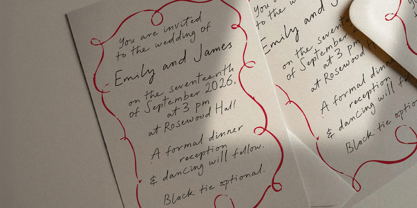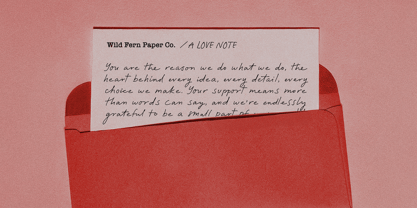
The Editorial Method
par PeachCreme
La famille de polices The Editorial Method a été conçue par Gulya Yeap et publiée par PeachCreme. The Editorial Method contient 2 styles et options de package familial.
The Editorial Method is a refined script font with a balance of fluid movement and structured elegance. Designed with natural, organic ligatures, it adapts seamlessly to both formal and expressive applications. With two weights—regular and bold—it works well for editorial design, branding, invitations, and understated luxury aesthetics. The alternative uppercase set adds variety, while the ligatures create a natural, handwritten rhythm. Subtle yet distinctive, this typeface lends itself to both contemporary and vintage-inspired layouts.